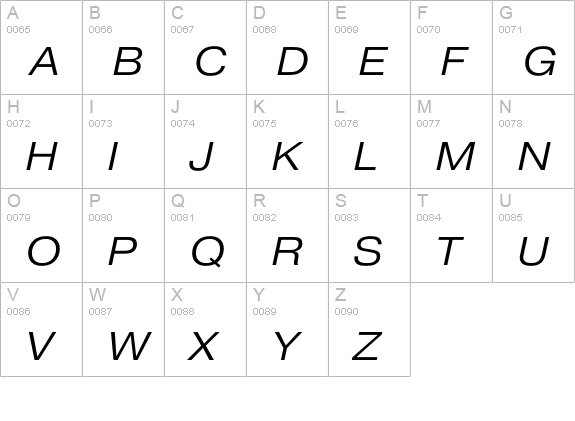
Pragmatica Extended Light Oblique is a refined, elegant, extended-width, italic variant in the Pragmatica typeface family \xE2\x80\x94 well suited to elegant body text, refined sub-headings, and luxury branding.
Pragmatica Extended Light Oblique font is a sleek and modern typeface that exudes sophistication and elegance. Its slanted design adds a touch of dynamism to any text, making it perfect for projects that require a contemporary and stylish look. The clean lines and subtle curves of this font make it highly legible and versatile, suitable for a wide range of design applications. Best of all, Pragmatica Extended Light Oblique font is available for free download at FontsMarket.com. This means you can easily access and use this high-quality font in your projects without any cost. Whether you're working on branding, editorial design, web design, or any other creative endeavor, Pragmatica Extended Light Oblique font is a fantastic choice that will elevate your work to the next level.